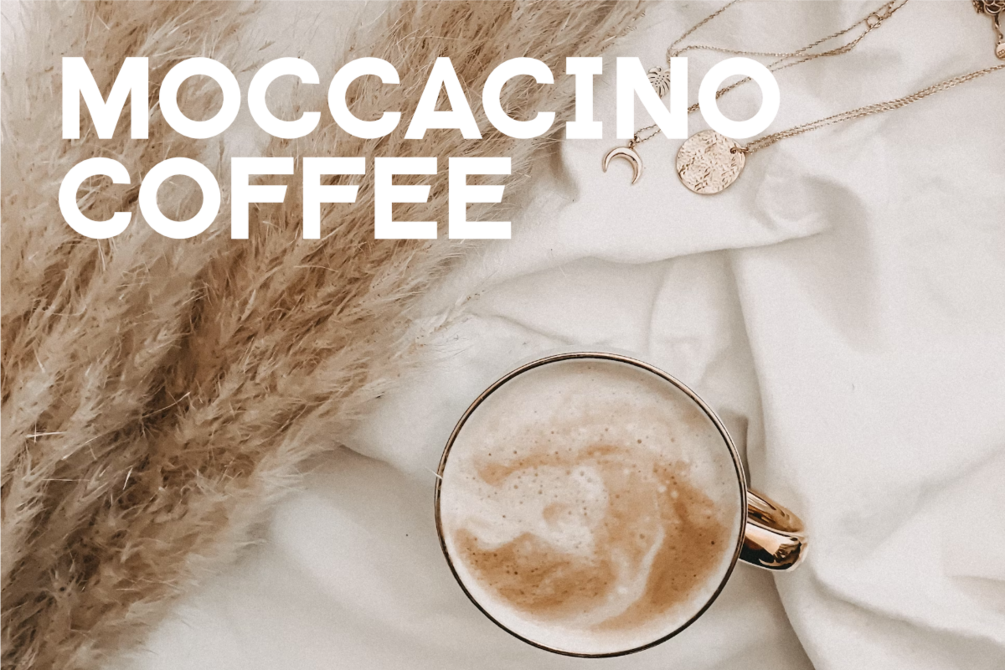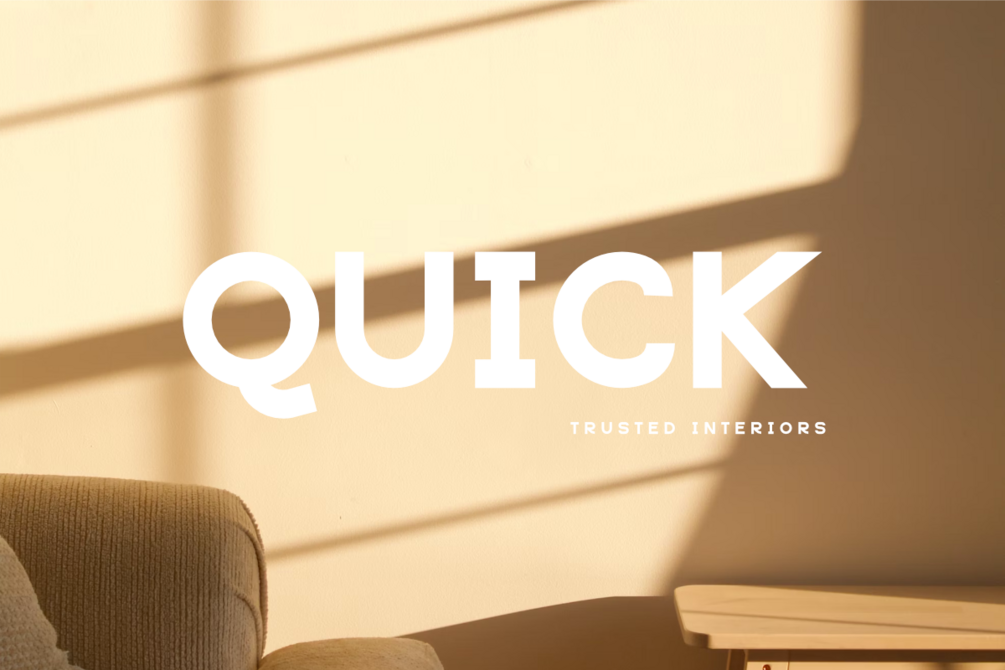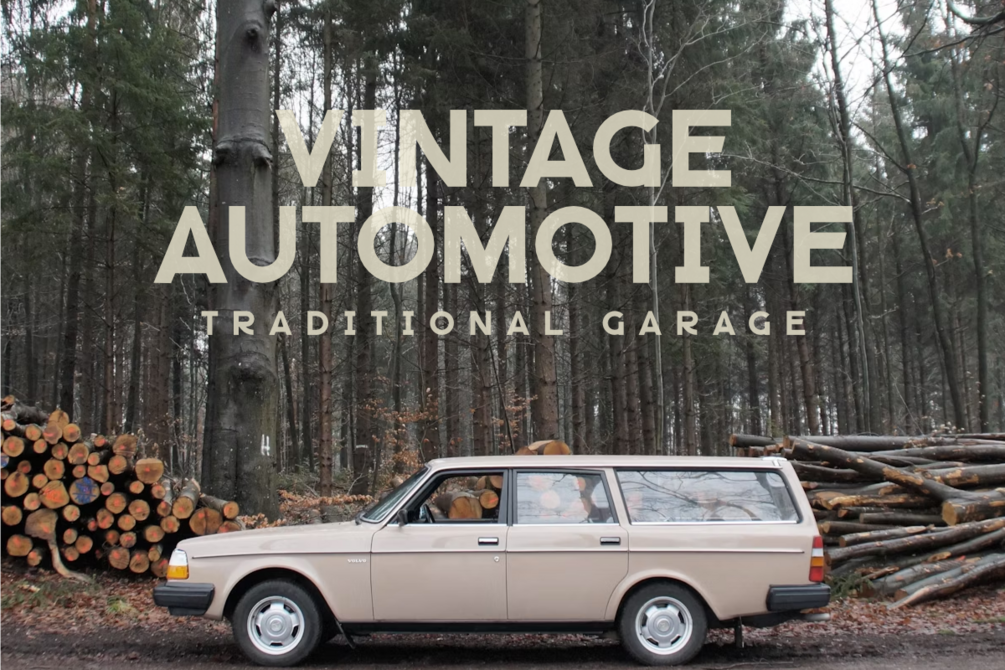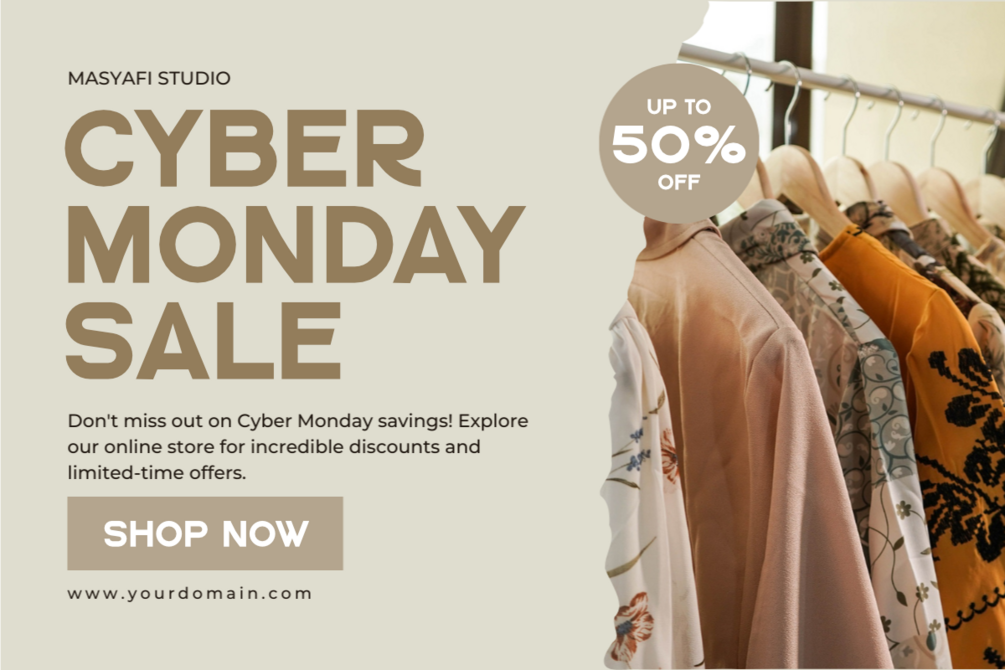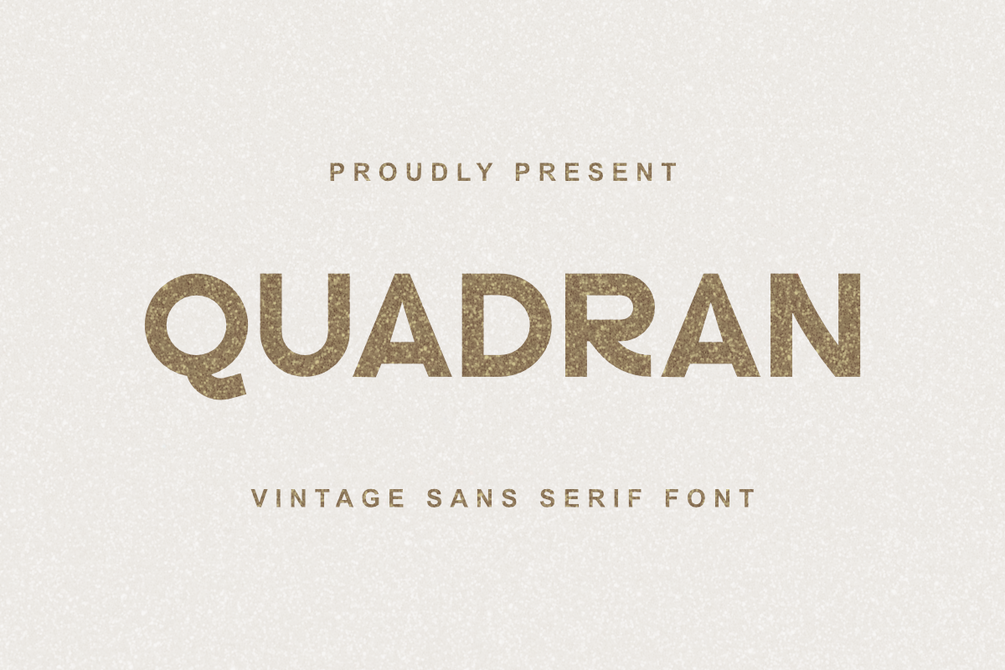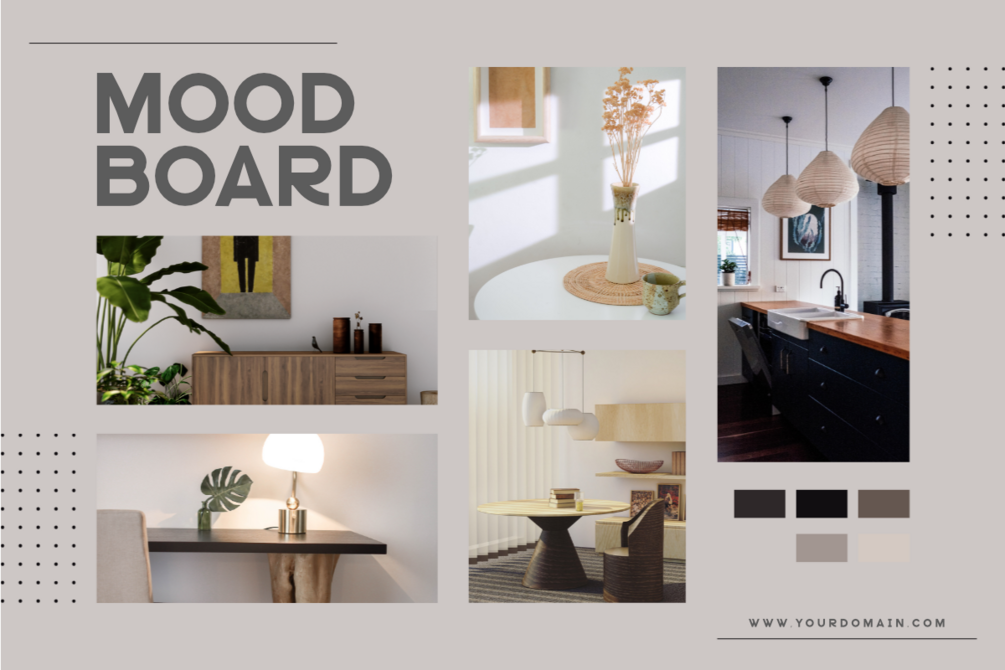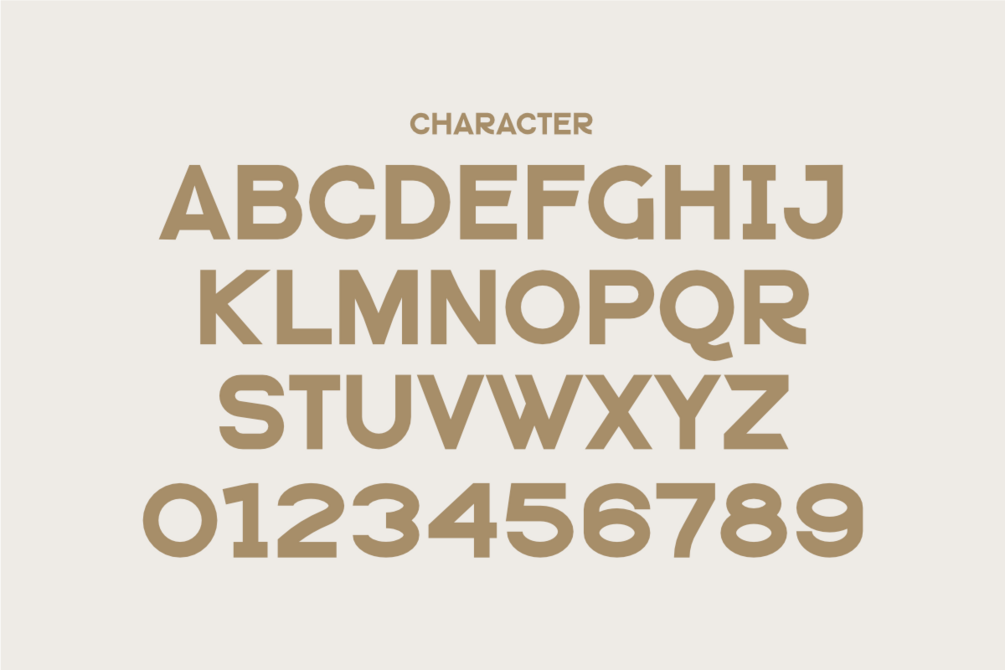
Quadran - Vintage Sans Serif Font
Quadran is a cool, vintage-style sans-serif font that exudes retro charm and modern flair. Its clean lines and distinctive letterforms capture the essence of mid-century design, making it ideal for posters, logos, and branding projects that require a touch of nostalgic sophistication with a contemporary twist.